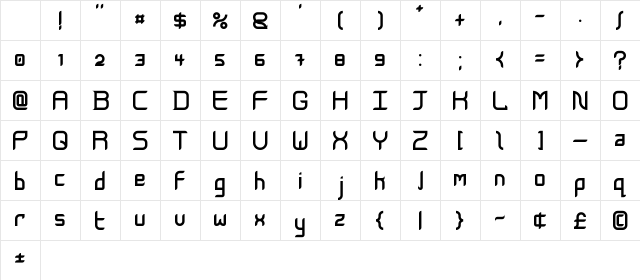
Complete Gadolinium Rounded Medium glyph index. Displaying only characters natively supported by Gadolinium Rounded Medium font.
Gadolinium Rounded softens its letterforms with rounded terminals, giving it an approachable, friendly quality that works well in consumer-facing and digital contexts.
Font Pairing: Pairs well with a rounded or humanist sans for body copy, maintaining the friendly tone without relying on Gadolinium Rounded to carry extended reading.
Pro Tip: Use Gadolinium Rounded for UI elements, app interfaces, and anywhere a friendly, approachable tone needs to be maintained without sacrificing clarity.